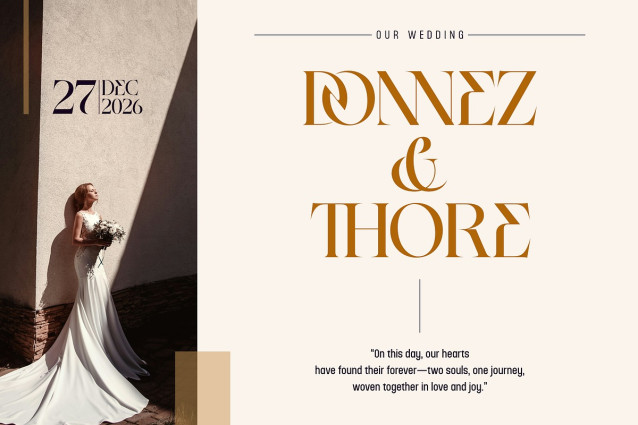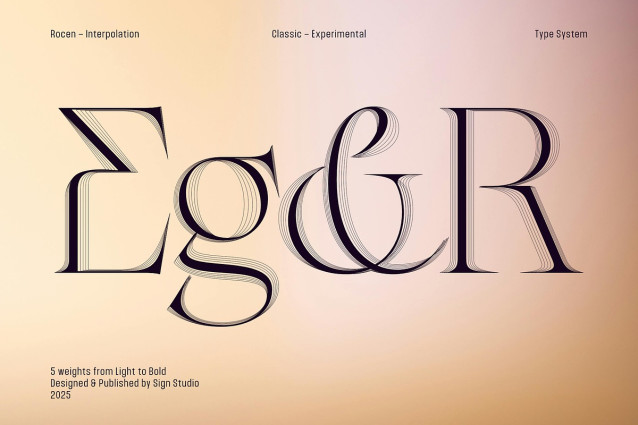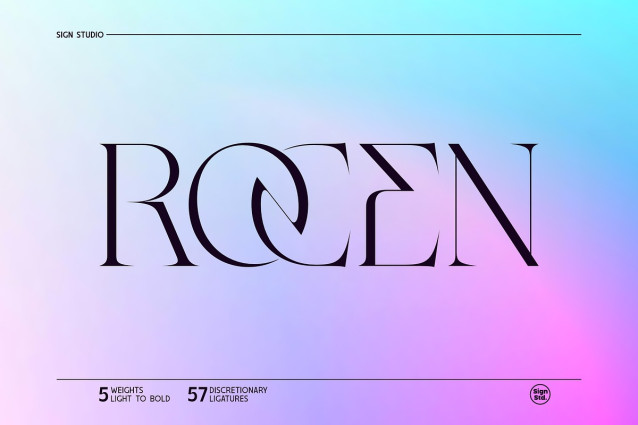
Rocen Font Family
Rocen Font Family is a timeless serif crafted for modern expression. It merges graceful classic proportions with a refined contemporary touch, resulting in a typeface that is both sophisticated and versatile. Defined by its balanced contrast and distinctive ligatures, Rocen lends a sense of character and polish to every composition—whether subtle or striking.
Offered in five versatile weights, from Light to Bold, Rocen adapts effortlessly to diverse applications, from editorials and brand identities to luxury packaging and digital storytelling. Its refined details and harmonious letterforms ensure readability without sacrificing elegance, making it a reliable choice for both functional design and visual impact.